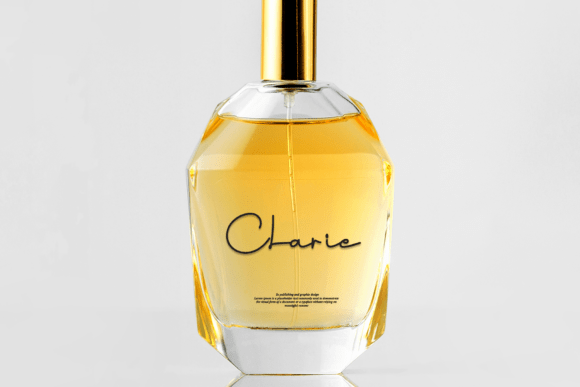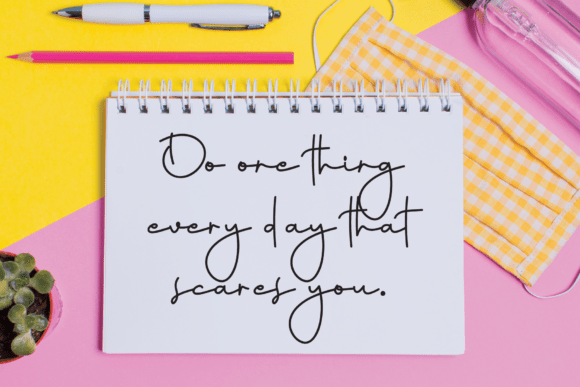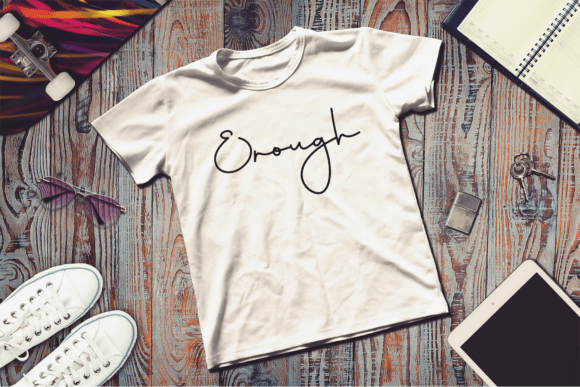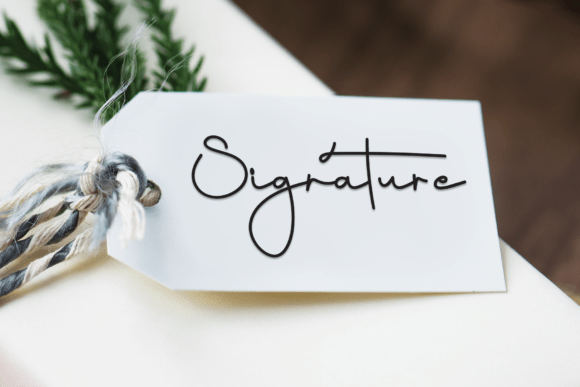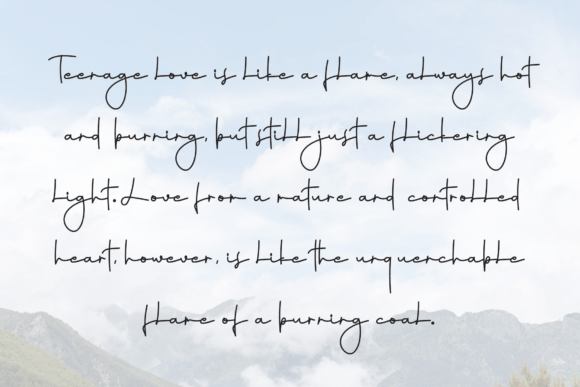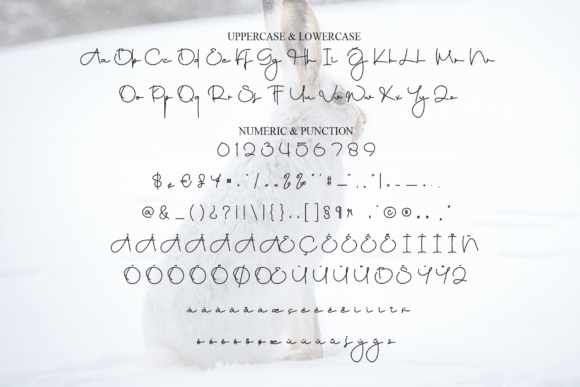
Introduction to Rabbitwinter Font
As a designer, have you ever been captivated by the delicate dance of ink on paper, the gentle flow of a handwritten script that transports you to a world of elegance and refinement? For me, that moment came when I stumbled upon the enchanting Rabbitwinter Font, a breathtaking handwritten script that has become an indispensable design resource in my creative arsenal. With its elongated horizontal connectors and high-reaching ascenders, this typeface captures the essence of a fine-tipped ink pen, imbuing every layout with a sense of sophisticated movement.
Whether you’re working on a high-end luxury packaging project or a romantic wedding invitation, Rabbitwinter Font is a valuable addition to your design toolkit. Its free download and transparent background make it easy to integrate into any creative project, allowing you to focus on crafting high-quality artistic statements that leave a lasting impression.
As a design enthusiast, you understand the importance of having access to high-quality design resources that can elevate your work to the next level. That’s exactly what the Rabbitwinter Font offers – a poetic touch that transforms standard layouts into breathtaking works of art, making it a must-have for any serious designer looking to take their creative project to new heights.
- Unique, hand-drawn design perfect for creative projects with a whimsical touch.
- High-quality font with a crisp, clear design that is suitable for both digital and print media.
Honest Review: Rabbitwinter Font
As a designer, I’ve had the chance to work with a wide range of fonts, and I’m excited to share my thoughts on the Rabbitwinter Font. ✨
One of the things that stood out to me was the unique design of this font. It’s perfect for creative projects that need a touch of whimsy and personality. The Rabbitwinter Font is great for titles, headings, and even body text in certain contexts.
- Works well in creative projects that require a playful, vintage feel.
- High-quality design with a clear and readable font.
While the Rabbitwinter Font is a great addition to any design resource, there are a few limitations to keep in mind. ⚠️
- The font may not be suitable for formal or professional projects due to its playful nature.
- The design may not be as versatile as some other fonts on the market.
Overall, I’m impressed with the Rabbitwinter Font and would recommend it to designers looking for a unique and creative design resource. It’s perfect for projects that need a touch of personality and whimsy.
Rabbitwinter Font is a unique, high-quality design resource perfect for creative projects. With its transparent background, this font offers endless possibilities for customization and personalization.
To maximize the potential of Rabbitwinter Font, experiment with different font sizes, colors, and arrangements. Combine it with other design elements to create a unique visual identity.
Rabbitwinter Font is suitable for a variety of projects, including:
- Brand identity and logo design
- Marketing materials and advertisements
- Wedding invitations and party decorations